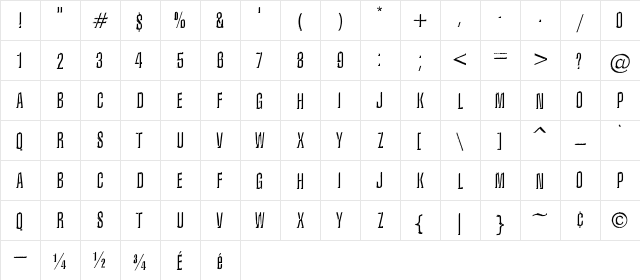
Iron Lung Regular
| Designer | S. John Ross |
Design Context for Iron Lung Typeface
Iron Lung offers clean, dependable letterforms without strong stylistic allegiance, making it a practical choice for designers who need flexibility.